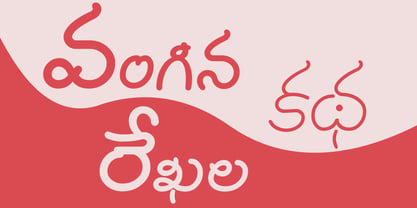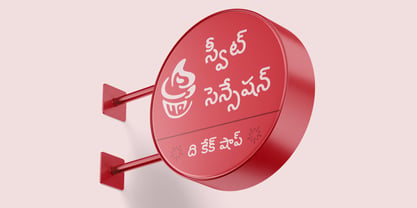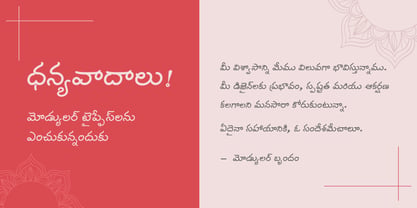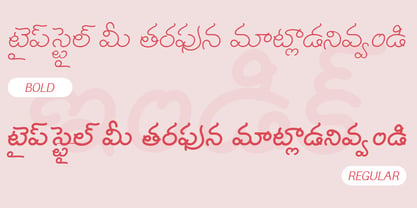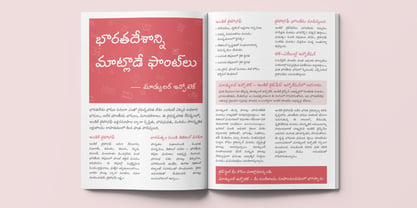
Shree Telugu 1616
by Modular InfoTech
The Shree Telugu 1616 Font Family was designed by Modular Infotech and published by Modular InfoTech. Shree Telugu 1616 contains 4 styles. More about this family
Shree Telugu 1616 is a flowing, script style, handwriting-inspired Telugu family that mimics an expert hand-characters lean slightly and join with fluid connectors, producing a warm, personable rhythm across words. It comes in two weights — Regular and Bold, both with corresponding italics. The letterforms are narrow and sinuous, with long, hairline strokes and gentle curves that emphasize a friendly handwritten flavor without losing the script’s structural clarity. This typeface is perfect for expressive branding, boutique packaging, event collateral, or editorial pull-quotes where an intimate, bespoke Telugu voice helps build personality and approachability. Its human touch makes it suitable for invitations, greeting cards, and lifestyle magazines seeking to convey warmth, individuality, and charm through typography.
Designers: Modular Infotech
Foundry: Modular InfoTech
About Modular InfoTech
Modular Infotech (formerly Modular Systems), based in Pune, India, was established in 1983 to advance Indian scripts in the Printing Industry. The company began its journey by developing CRT-based phototypesetters (PTS100), which were launched in 1987. Without font generator tools, Modular created a proprietary font format, continuously enhancing it to meet evolving needs. Collaborating with artists across India, they built the Nation’s most extensive collection of original typefaces for all Indian Scripts.In 1989, Modular launched DOS-based software paired with Indic keyboard handlers using its proprietary font format. Adapting to technological advancements, they transitioned to industry-standard formats like TrueType (TTF) and Adobe Type1, culminating in the launch of their flagship multilingual software, Shree-Lipi, in 1991. This period also marked the rise of laser printers, prompting further innovation. The company later embraced OpenType font formats introduced by Microsoft, ensuring seamless compatibility with modern platforms.Today, Modular Infotech is renowned for possessing the world’s most extensive Indic fonts., designed to support India’s diverse linguistic heritage. Their fonts cover over 15 Indian languages, including Devanagari, Gujarati, Gurmukhi, Bangla, Assamese, Manipuri, Odia, Tamil, Kannada, Telugu, Malayalam, and Vedic Sanskrit. Each typeface is meticulously crafted for readability, cultural resonance, and aesthetic appeal, enabling authentic communication in regional languages.Modular fonts excel in rendering complex ligatures and unique glyphs, accurately capturing each script's stylistic and cultural nuances. Leveraging advanced OpenType technology, these fonts ensure flawless representation of intricate Indian scripts across print and digital mediums.The extensive font collection serves many industries, including Publishing, Design, Education, Newspapers, and Government sectors. Beyond facilitating multilingual communication, Modular Infotech is vital in preserving India’s linguistic heritage, bridging traditional and modern media needs. The company’s impact extends globally, with prominent International Clients such as Google, Microsoft, Apple, and RedHat relying on its expertise in Indic typography.Through its pioneering efforts and unwavering commitment to quality, Modular Infotech has made regional language content more accessible, visually impactful, and culturally authentic, cementing its place as a leader in Indic font development.